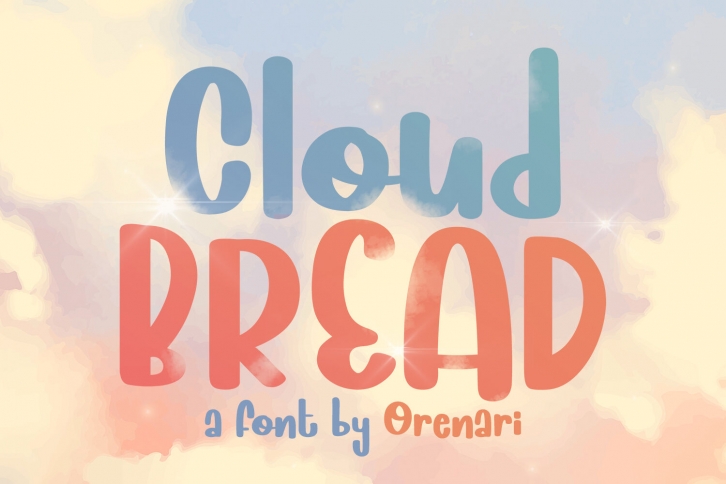
Cloud Bread FONT Download
Cloud Bread is a sweet and friendly display font. This font has bold and cute shape. It's unique style makes it incredibly fitting to a large pool of designs. Be inspired by Cloud Bread and create something fun and memorable!